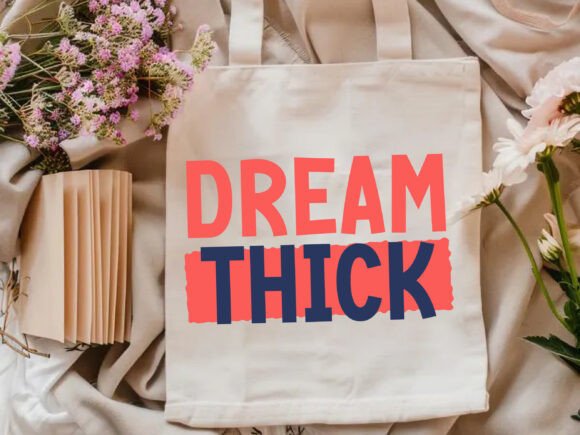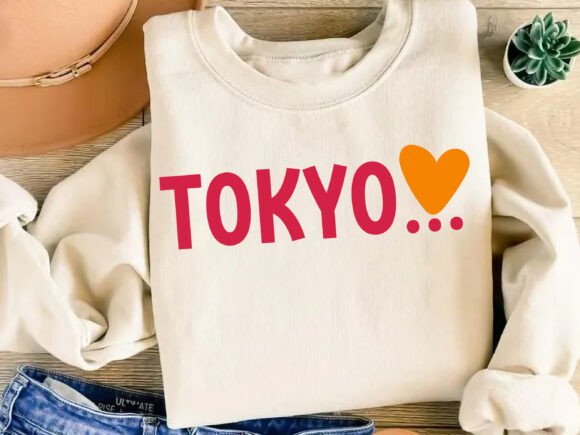
Unleash Your Creativity with the Perfect Font
Have you ever been brainstorming ideas for a new project and suddenly, a burst of inspiration hits you? The words start flowing, and the creative juices are in full swing. That’s exactly what happened when the Dream Thick Font was born – a bold display font designed to make a statement and leave a lasting impression. Its thick letters and playful style are perfect for grabbing attention in posters, headlines, and logos.
For designers, the Dream Thick Font is a valuable addition to their toolkit. Its friendly and modern look makes it great for creative projects and designs that need a strong impact. With its rounded shapes and bold personality, this font is sure to elevate your designs and leave a lasting impression on your audience.
Dream Thick Font Key Features
- Font Family: Dream Thick Font is a unique, bold font designed for making text stand out.
- Size: The font family includes a range of weights from Thin to Ultra Black, with each weight available in various point sizes.
- Unique Characteristics: Dream Thick Font features an exaggerated, thick line style that adds visual interest to text, making it perfect for headlines, titles, and other display typography.
Dream Thick Font Review
Overall, I’m impressed with the Dream Thick Font. ✨ It’s perfect for creating a bold, eye-catching visual identity. The font’s thick lines and chunky design elements make it ideal for use in headings, titles, and other text that needs to stand out.
- ✨ The Dream Thick Font is highly customizable, allowing you to adjust the weight, size, and spacing of the font to fit your design needs.
- ✨ The font is highly legible, even at smaller sizes, making it a great choice for use in body text or other areas where readability is crucial.
- ✨ The Dream Thick Font is available in a range of weights and styles, making it easy to create a consistent visual identity across your design.
That being said, there are a few limitations to the Dream Thick Font that I’ve encountered. ⚠️ One of the main issues is that the font can look a bit dated or retro, which may not be suitable for all design projects.
- ⚠️ The Dream Thick Font may not be the best choice for designs that require a more modern or sleek aesthetic.
- ⚠️ The font can be quite heavy and may not be suitable for use in large blocks of text or other areas where a lighter font is preferred.
Overall, I think the Dream Thick Font is a great choice for designers who need a bold, eye-catching font for their projects. While it may have some limitations, it’s a versatile and highly customizable font that can be used in a variety of design contexts.
Getting the Most Out of Dream Thick Font
For the best results, use Dream Thick Font in conjunction with bold or italic text to create visual interest. You can also experiment with different font sizes and colors to create a unique look.
Dream Thick Font is ideal for creating eye-catching headlines, titles, and subtitles. It’s also great for use in posters, social media graphics, and other promotional materials where you want to grab the viewer’s attention.